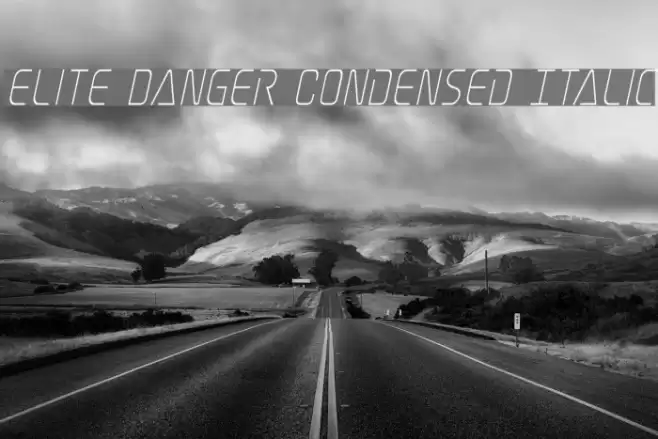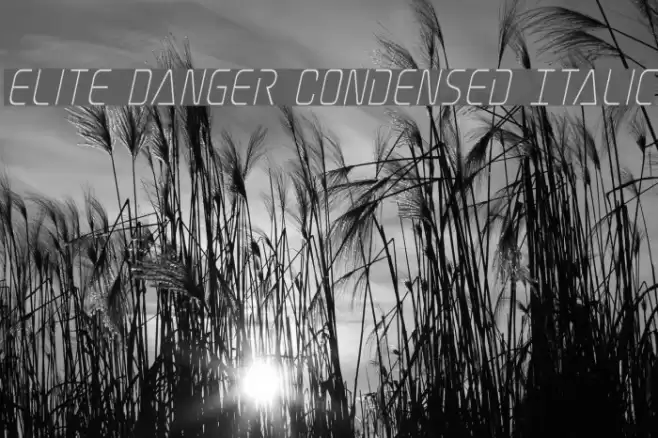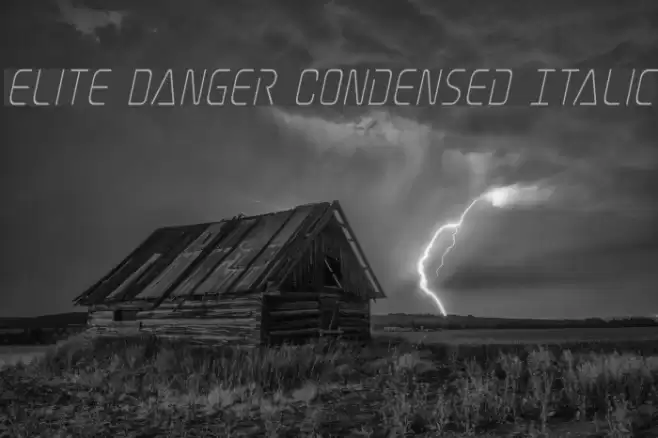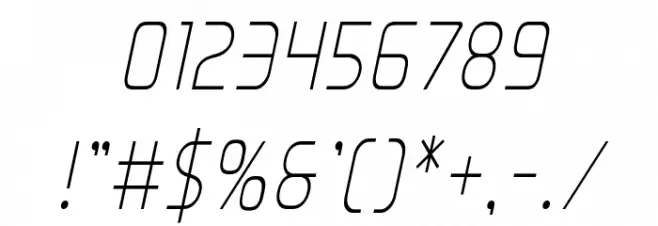
Elite Danger Condensed Italic Font
Elite Danger Condensed Italic Description
This font features a sleek, modern design with a condensed and italicized style. The characters are elongated and slightly slanted, giving a sense of motion and dynamism. The strokes are consistent in thickness, providing a uniform appearance across all characters. The uppercase and lowercase letters maintain a geometric form, while the numerals and special characters complement the overall aesthetic. The font's clean lines and futuristic feel make it suitable for various design applications.
A modern, condensed italic font with a sleek, dynamic appearance from Sci-fi fonts.
- Proposed Projects: Ideal for technology branding, futuristic posters, sci-fi book covers, and digital interfaces.
- Use Case: Headlines, Logos, Digital interfaces